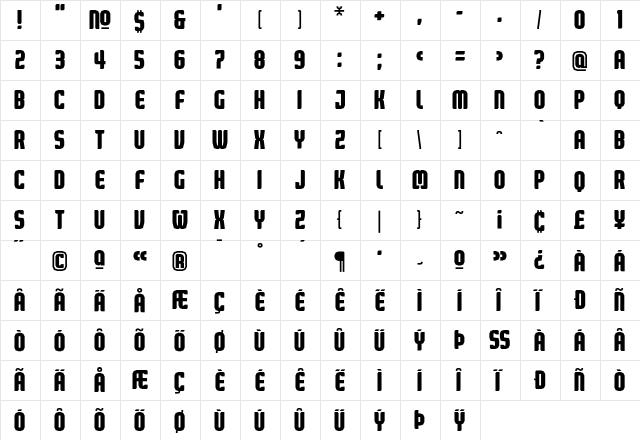
Judgement Regular Font Preview
Judgement Regular
Judgement Regular Font Details
| Foundry | n Hughes . A Device font |
Design Context for Judgement Typeface
Judgement offers clean, dependable letterforms without strong stylistic allegiance, making it a practical choice for designers who need flexibility.